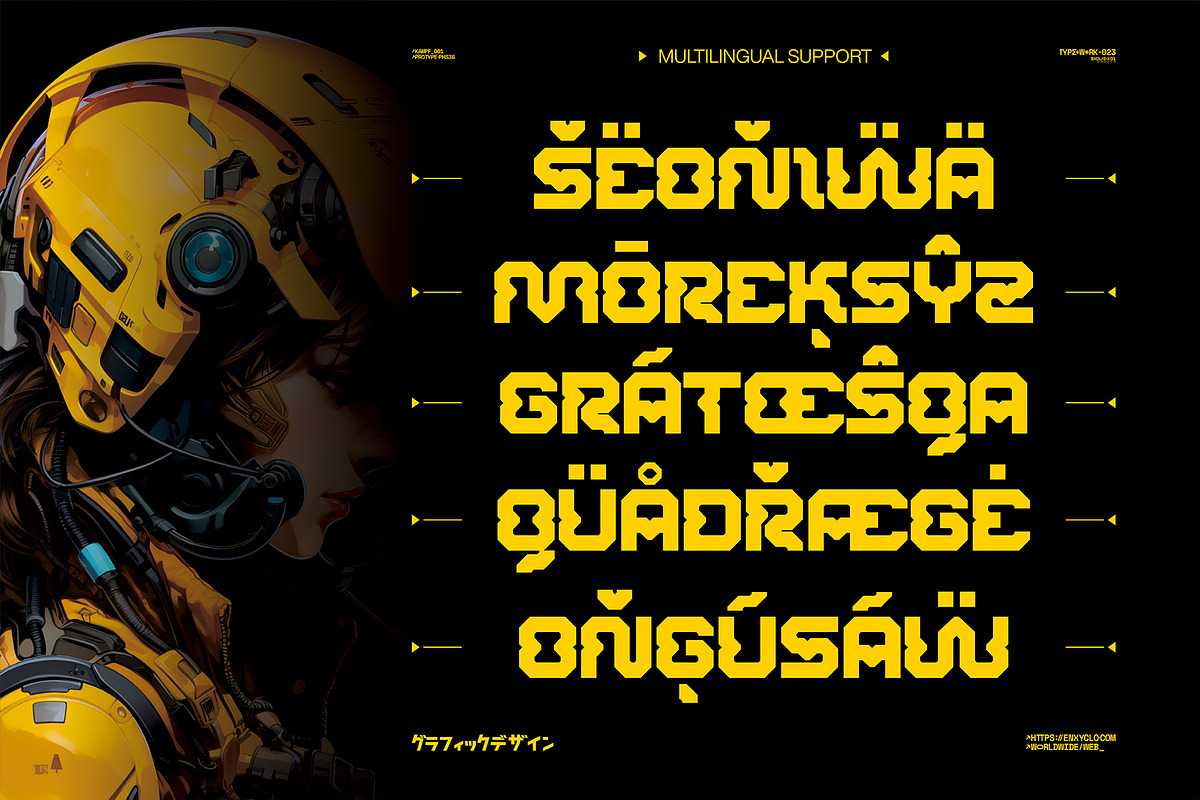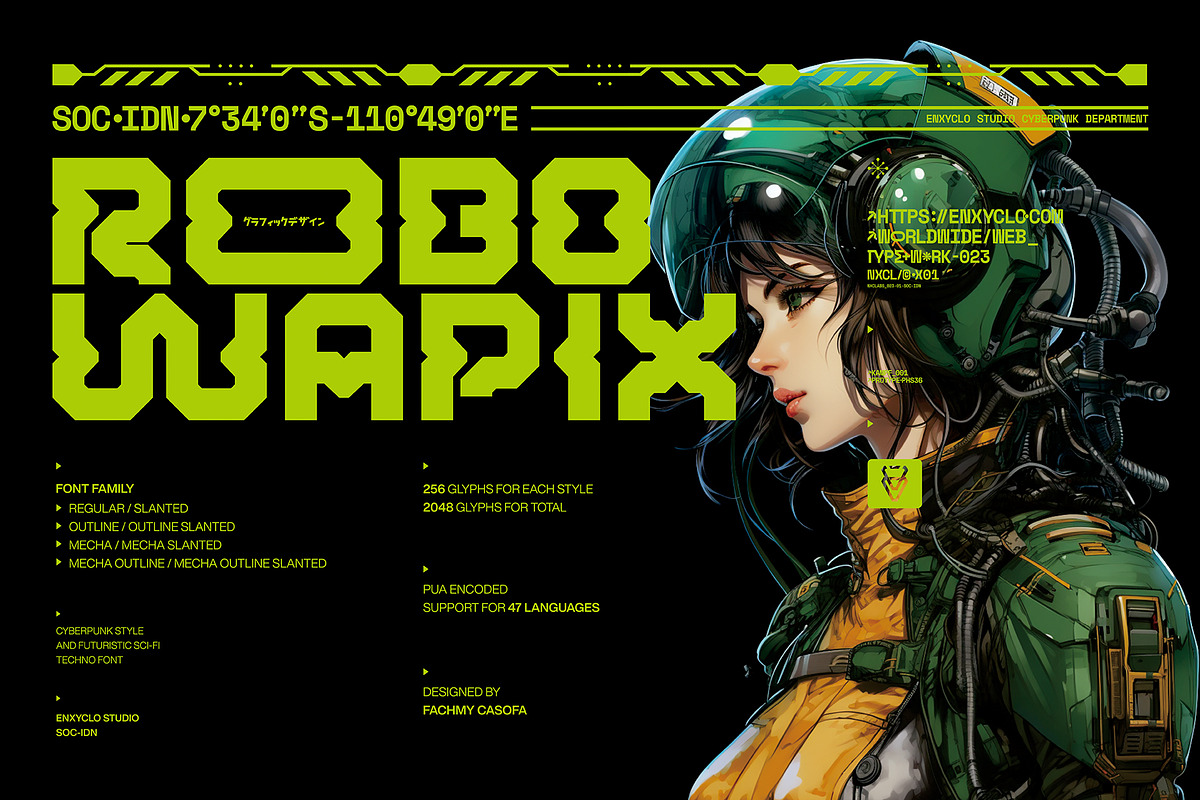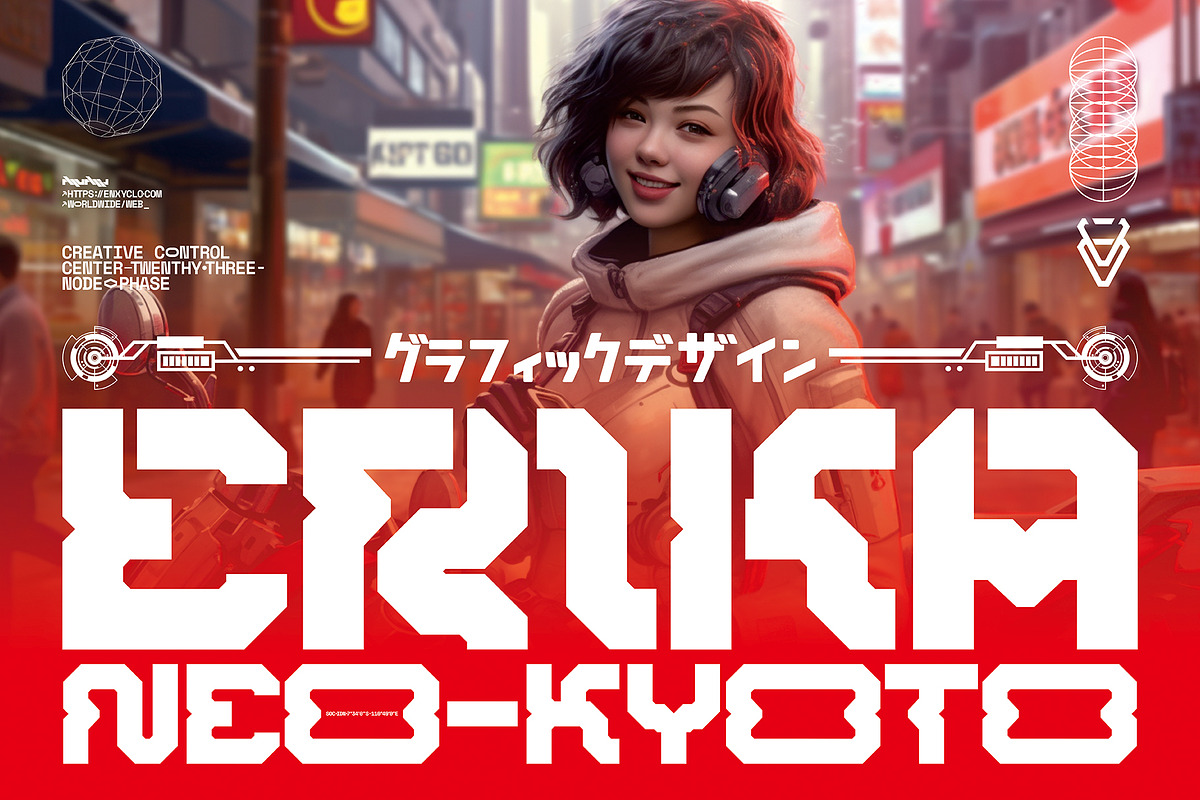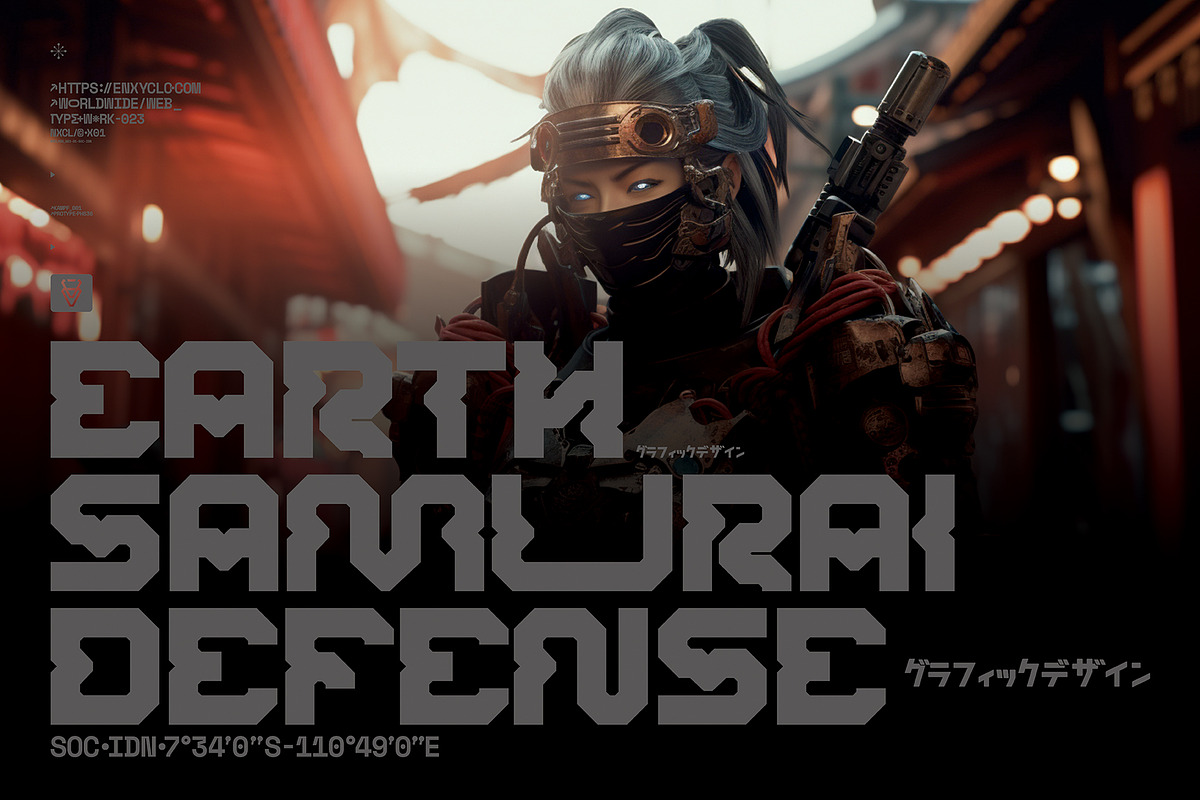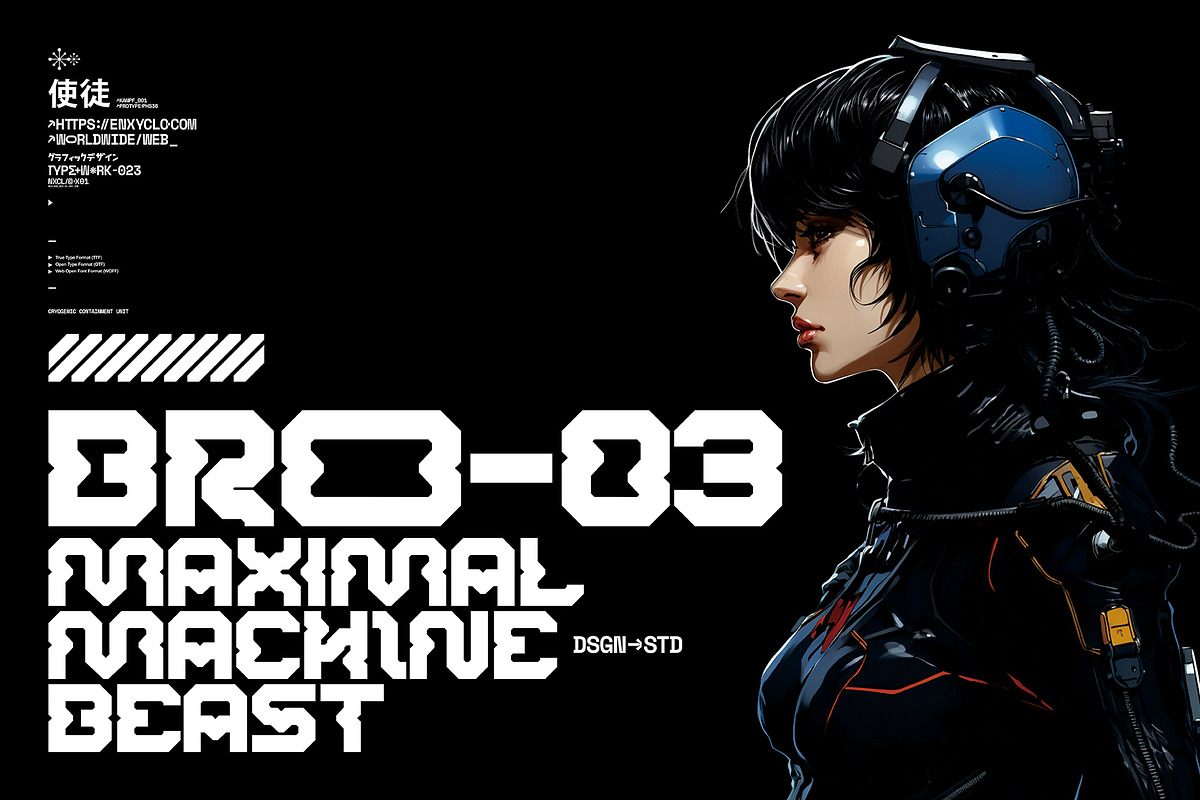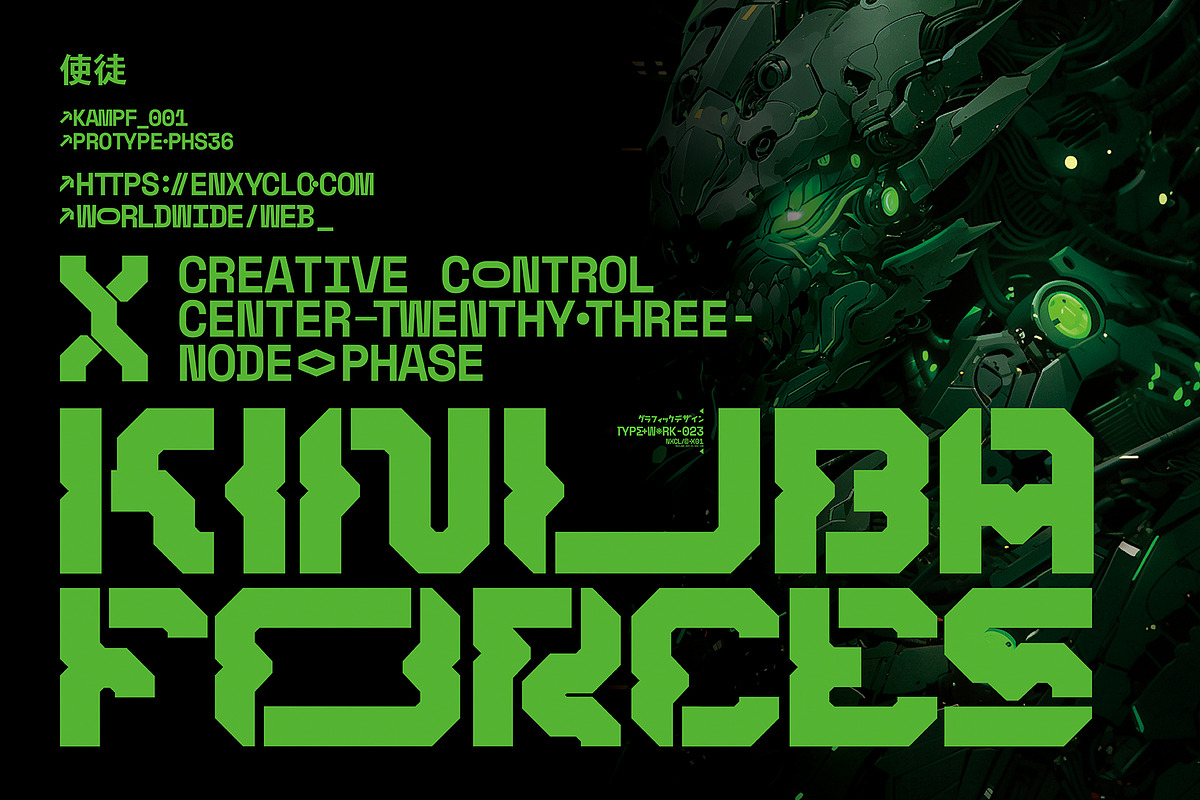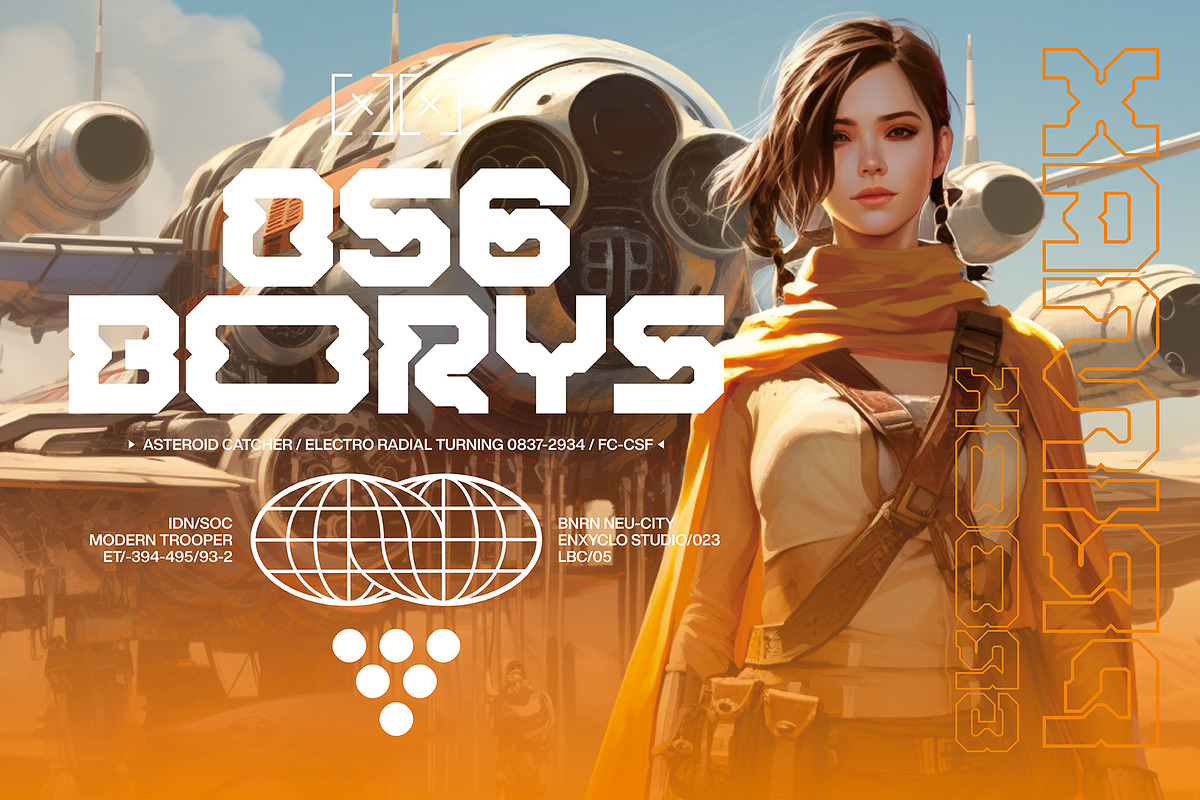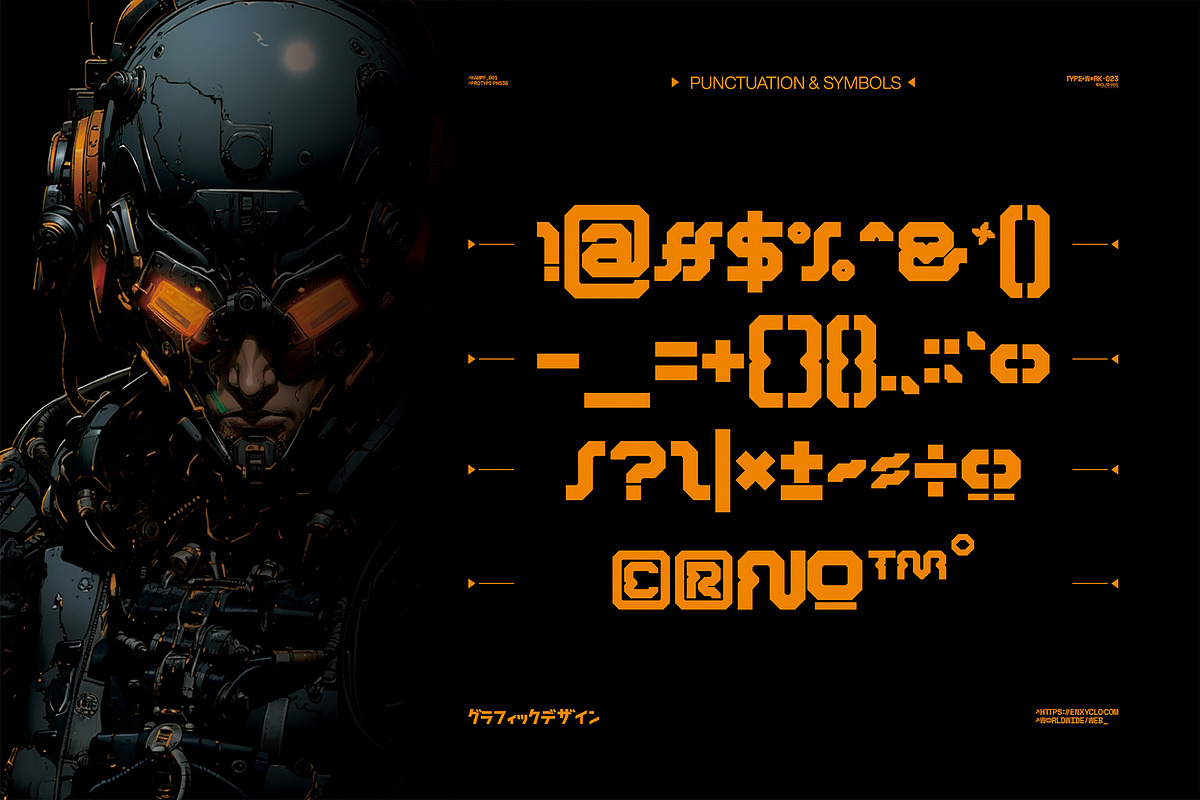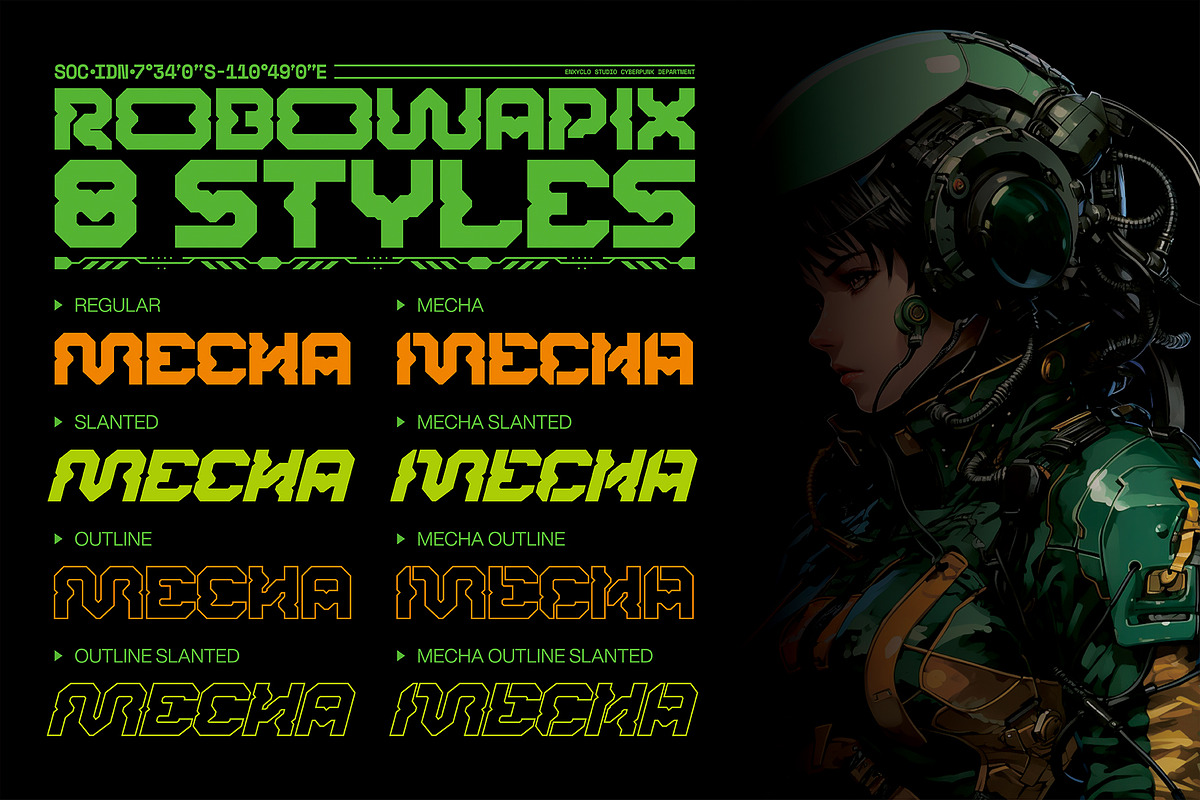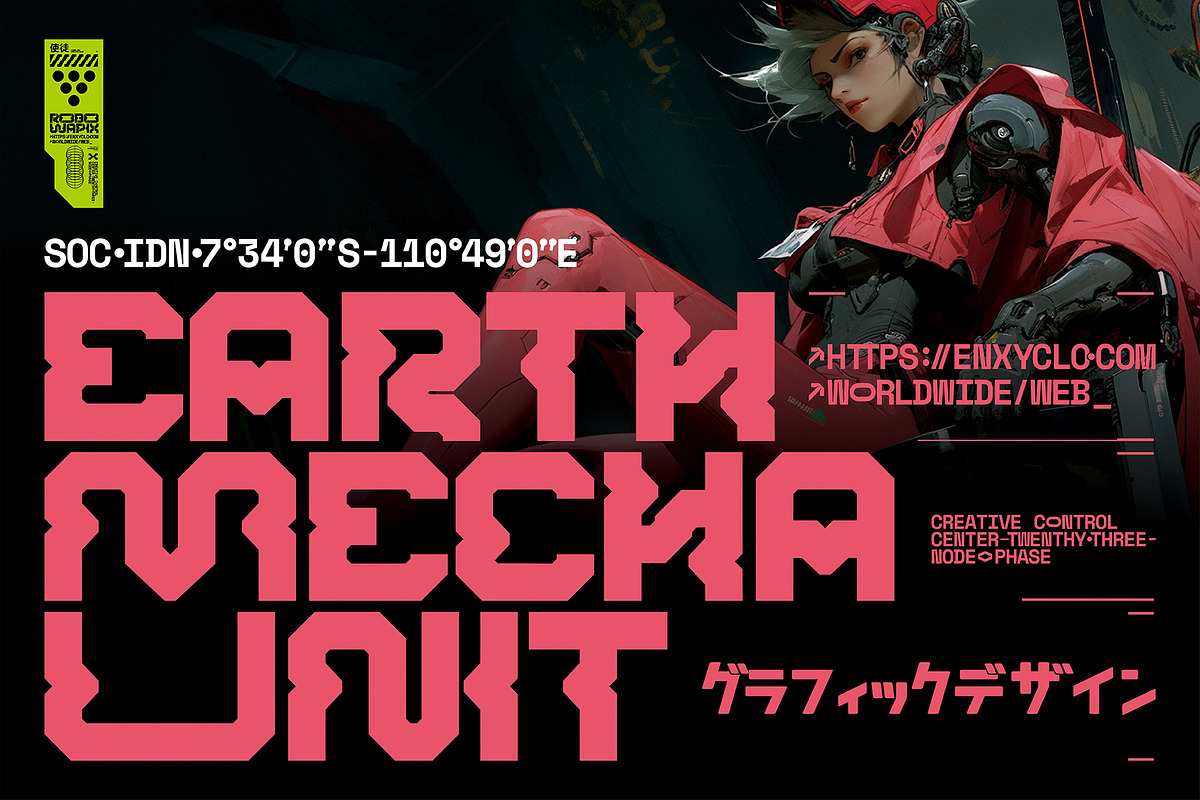
NCL ROBOWAPIX - Cyberpunk Futuristic
NCL ROBOWAPIX is not your ordinary font; it’s a cyberpunk futuristic techno mecha font with 8 styles (Regular, Regular Slanted, Regular Outline, Regular Outline Slanted, Mecha, Mecha Slanted, Mecha Outline, Mecha Outline Slanted) that takes your creativity to the next level. Its futuristic aesthetics bring a whole new dimension to your designs, making them stand out. Whether you’re working on a website, poster, logo, or any other project, this font adds that extra touch of innovation and sophistication.
Cyberpunk–a genre that started in science fiction and has left its indelible mark on various aspects of pop culture, including design. The textures of Cyberpunk are hard to ignore. Its intrinsic appeal lies in the paradoxical blend of the advanced and the old-fashioned, the bright and the brooding, the hopeful and the despairing. And one way this vibe gets communicated powerfully is through this font–the heroes of visual communication if you will.
Whether you’re a graphic designer working on a futuristic project, a film-maker creating titles for your next sci-fi epic, or simply a fan of Cyberpunk aesthetics, this font will serve as your guide, illuminating your path in the shadowy streets of this unique design language.
Using this beautiful futuristic font makes your project an attention-grabbing masterpiece. It can instantly captivate your audience and leave a lasting impression. It’s the perfect choice for those who dare to be different and want to break away from the ordinary. If you’re wondering how to utilize this font best, check out the previews. They’ll give you some incredible inspiration for incorporating this font into your designs. From sleek and modern website to eye-catching posters, the possibilities are endless.
Masterfully designed to become a true favorite, this font has the potential to bring each of your creative ideas to the highest level! It was purposely crafted to be used in large point sizes, although it doesn’t lose its magic in small point sizes. This font will be an incredible asset to your fonts’ library, as it has the potential to elevate any creation. With this beautiful font, absolutely you can make your project stand out from the rest. Let your imagination run wild as you envision the impact this great typeface can have on your project.
- 8 Styles: Regular, Regular Slanted, Regular Outline, Regular Outline Slanted, Mecha, Mecha Slanted, Mecha Outline, Mecha Outline Slanted
- Contains 256 Glyphs for Each Style and 2048 Glyphs for Total
- Numeral, Punctuation & Symbols
- Support for 47 Languages: Asu, Bemba, Bena, Chiga, Cornish, Embu, English, Esperanto, Estonian, Filipino, Finnish, Gusii, Indonesian, Kabuverdianu, Kalenjin, Kamba, Kikuyu, Kinyarwanda, Latvian, Luo, Luyia, Machame, Makhuwa-Meetto, Makonde, Meru, Morisyen, North Ndebele, Nyankole, Oromo, Quechua, Rombo, Rundi, Rwa, Samburu, Sangu, Shambala, Shona, Soga, Somali, Swahili, Swiss German, Taita, Teso, Uzbek (Latin), Volapük, Vunjo, Zulu.